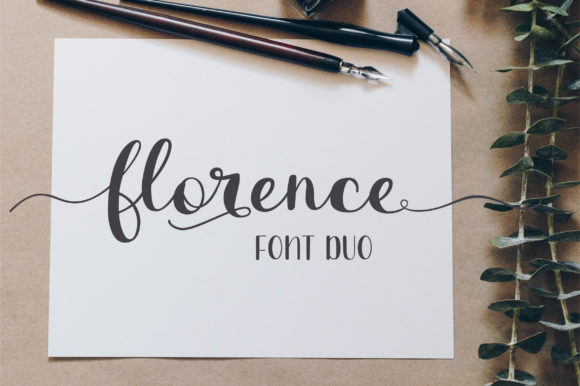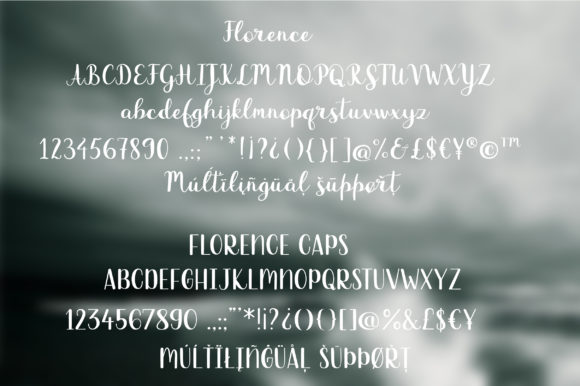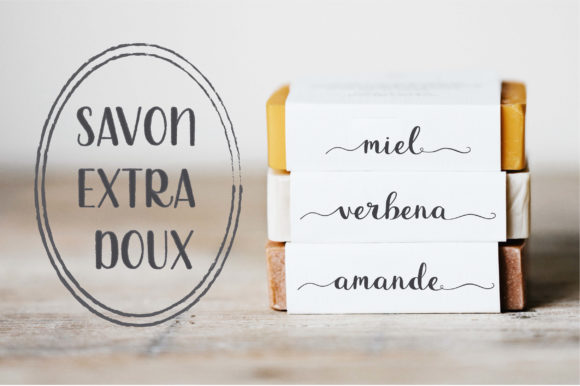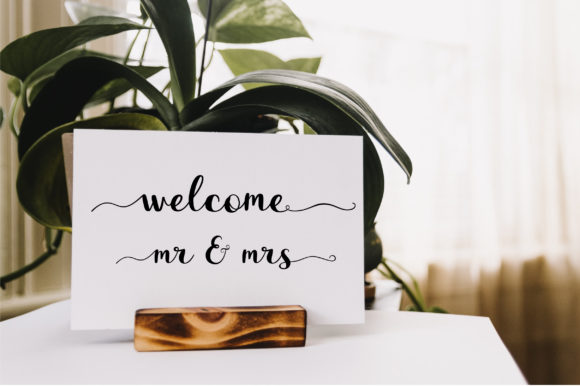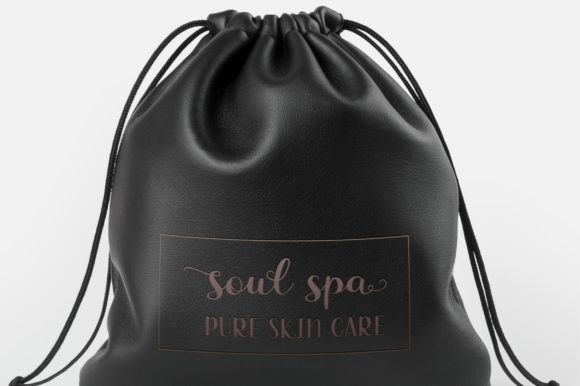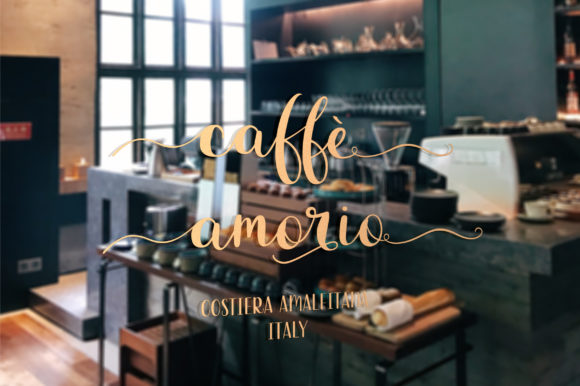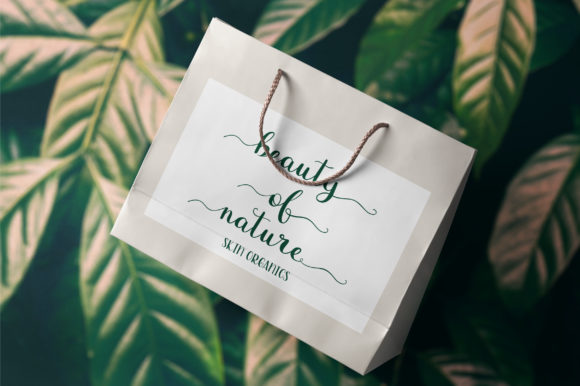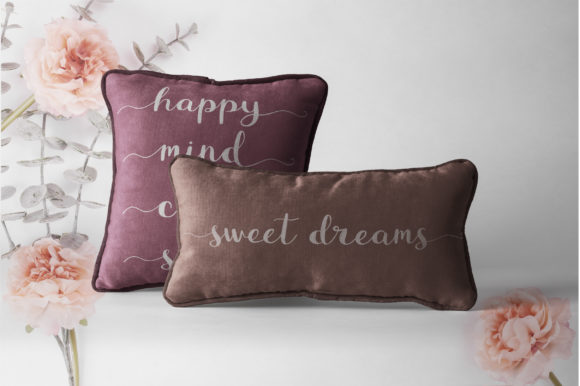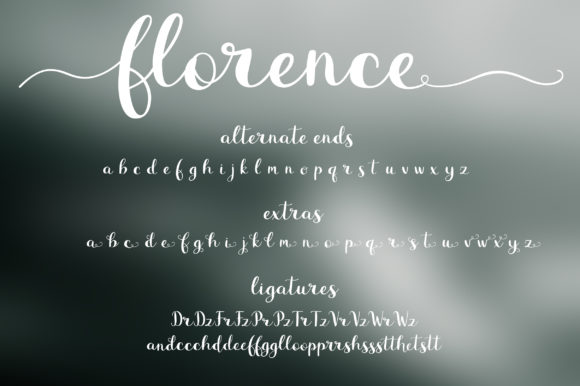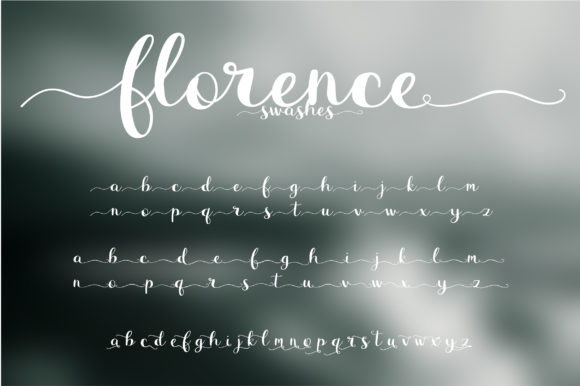
Florence Duo Font
Florence is a stunning font duo featuring two beautiful handwritten fonts. Experiment and combine these two scripts and achieve extraordinary results.